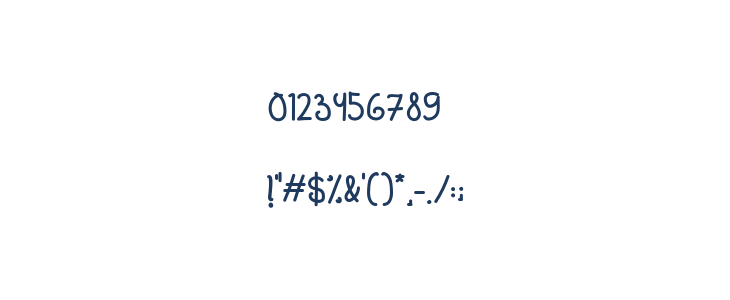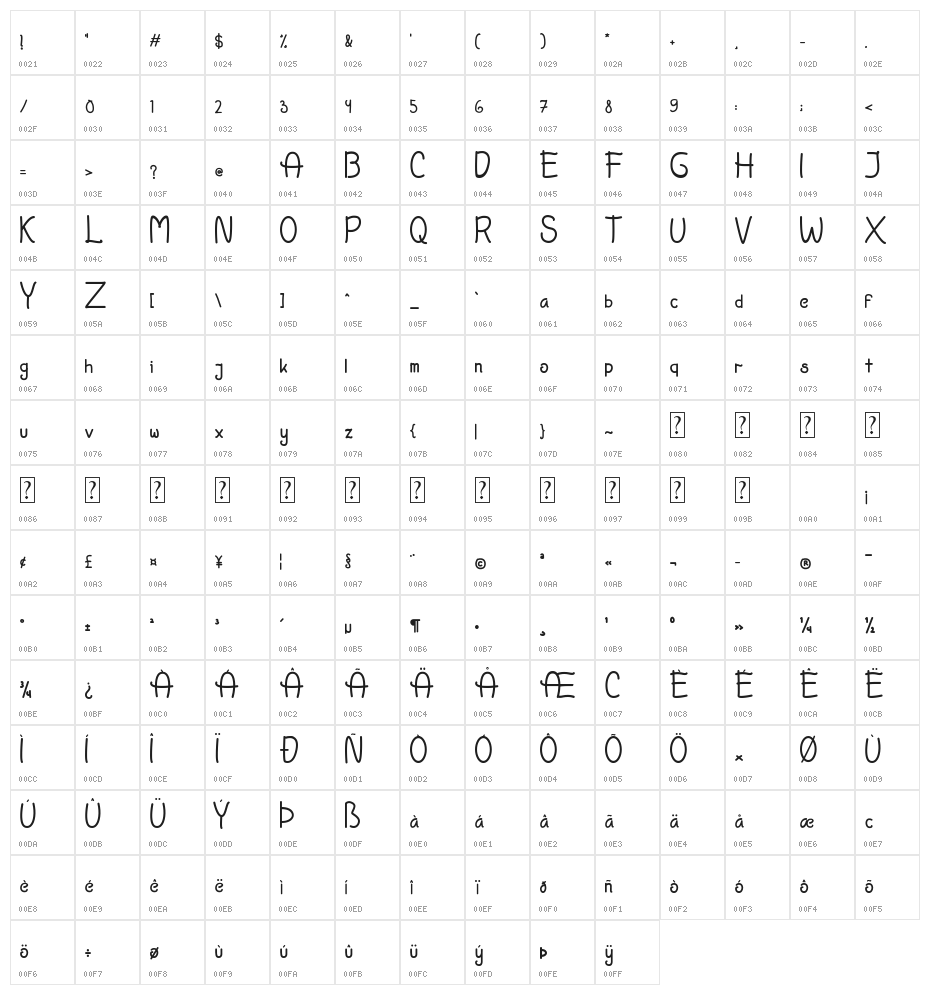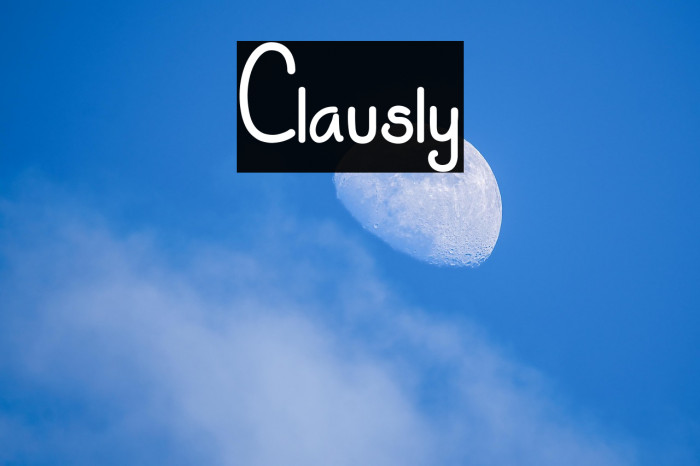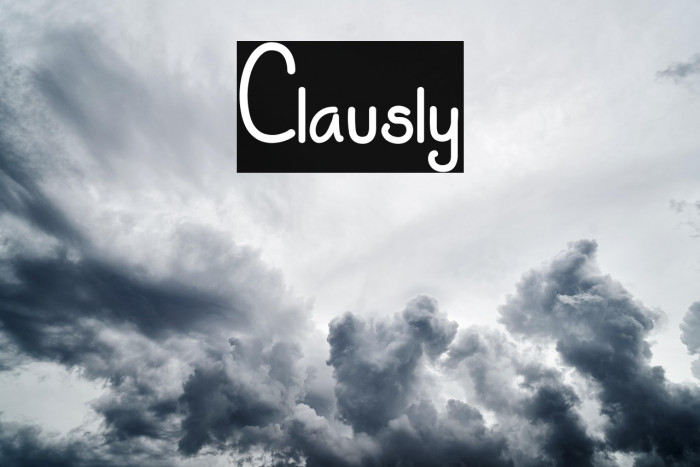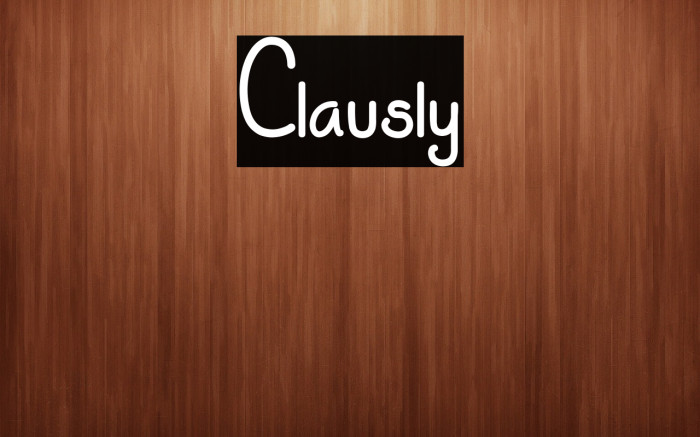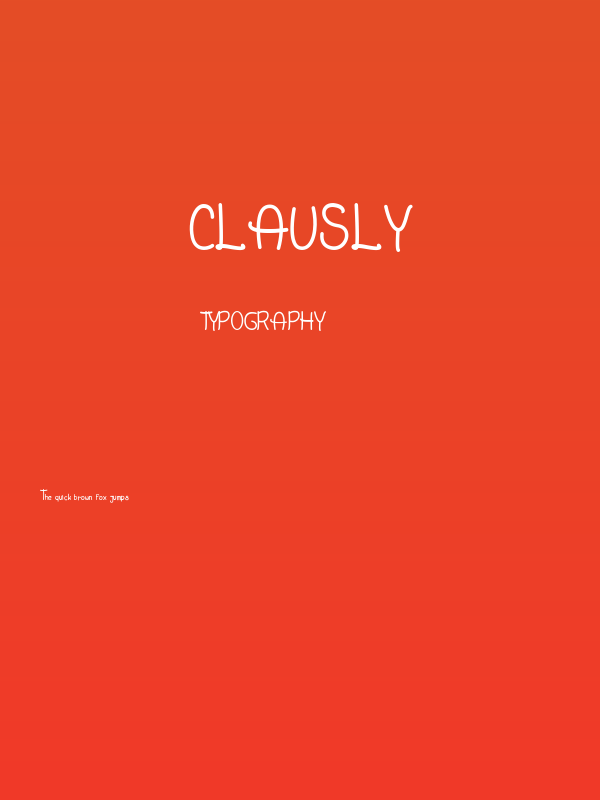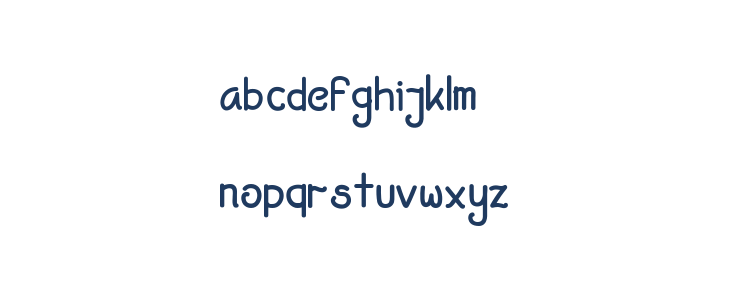
Clausly Font
Clausly Description
This playful and whimsical font features rounded, smooth strokes that give it a friendly and approachable appearance. The characters are slightly irregular, adding a hand-drawn feel that enhances its charm. Uppercase letters are bold and prominent, while lowercase letters maintain a consistent flow with a slightly smaller size. The numbers and special characters are designed to match the overall style, ensuring a cohesive look across all text. This font's unique personality makes it ideal for projects that require a touch of fun and creativity.
| Overall Style | Whimsical |
| Use Case | Headlines, Logos, Creative projects |
| Proposed Projects | Ideal for children's books, playful branding, greeting cards, and creative posters. |